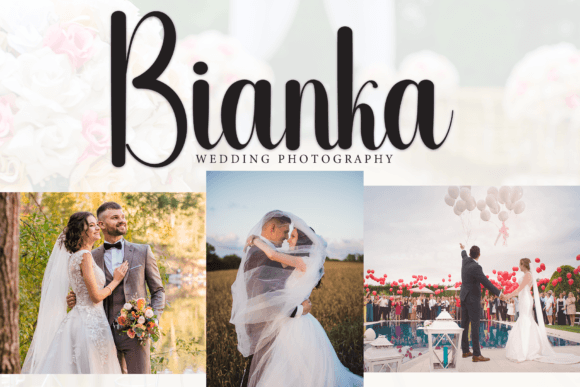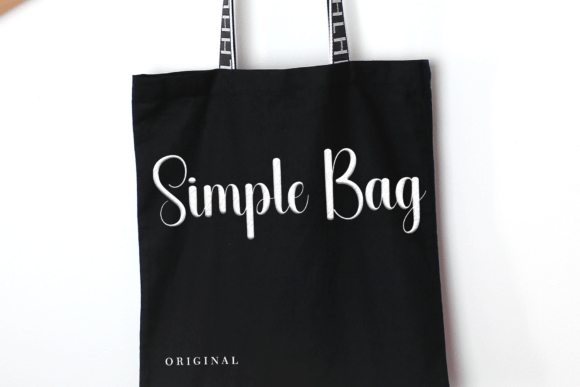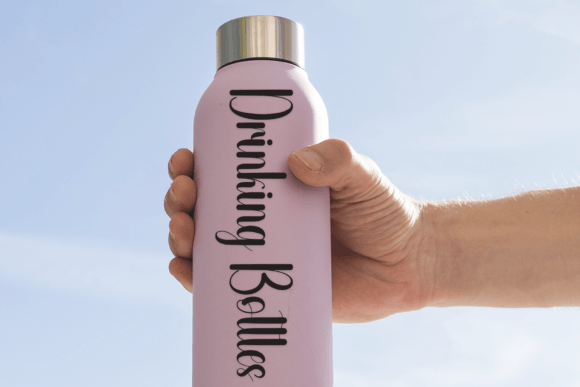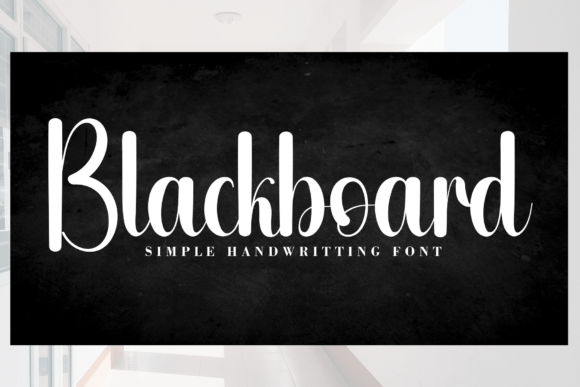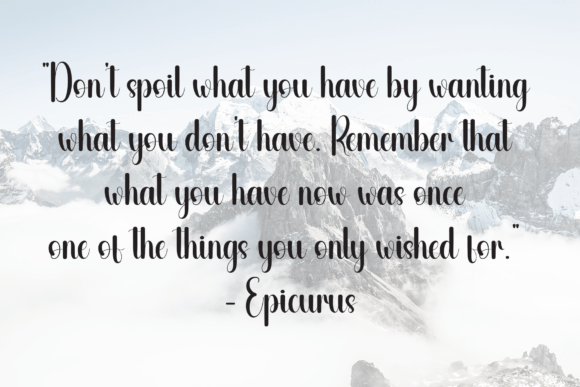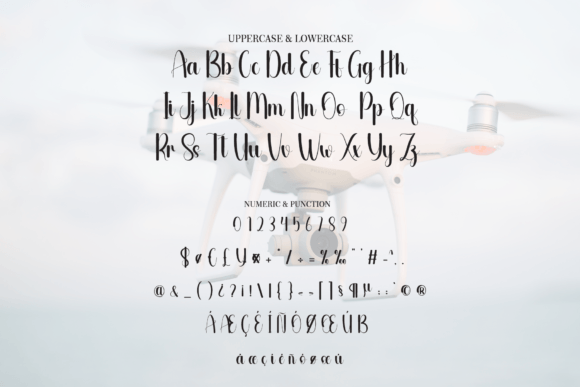
Introducing Drone Font: The Sweet and Friendly Handwritten Font for Your Creative Projects
Are you a designer or crafter looking for a font that can add a touch of warmth and personality to your creations? Look no further than Drone Font! This sweet and friendly handwritten font is perfect for a variety of projects, from wedding invitations and cards to social media graphics and more.
What Makes Drone Font So Special?
Drone Font is a fresh and neat handwritten font that is designed to bring a sense of fun and playfulness to your designs. Its unique and elegant lettering style makes it ideal for a wide range of creative projects, from formal events to casual social media posts.
One of the standout features of Drone Font is its versatility. Whether you’re creating a wedding invitation, a greeting card, or a social media graphic, this font is sure to add a touch of personality and whimsy to your design.
Drone Font is particularly well-suited for wedding invitations and cards. Its sweet and romantic feel makes it perfect for couples looking to add a touch of elegance and sophistication to their wedding stationery.
Imagine creating beautiful wedding invitations, save-the-date cards, and thank-you notes with Drone Font. The font’s elegant and refined lettering style will add a touch of luxury and sophistication to your designs, making them truly unforgettable.
Great for Social Media Graphics and More
But Drone Font isn’t just limited to wedding invitations and cards. Its fresh and playful feel makes it perfect for a wide range of social media graphics, from Facebook posts and Instagram stories to Pinterest graphics and more.
Whether you’re a blogger, influencer, or small business owner, Drone Font is a great choice for creating engaging and eye-catching social media graphics. Its unique and elegant lettering style will help your brand stand out from the crowd and leave a lasting impression on your followers.
Why Choose Drone Font?
So why choose Drone Font for your creative projects? Here are just a few reasons:
- Unique and elegant lettering style: Drone Font features a beautiful and refined lettering style that is sure to add a touch of sophistication and elegance to your designs.
- Versatile: Drone Font is perfect for a wide range of creative projects, from wedding invitations and cards to social media graphics and more.
- Easy to read: Despite its elegant and refined lettering style, Drone Font is still easy to read, making it perfect for body text and other applications where readability is important.
- Fun and playful: Drone Font has a fun and playful feel that is sure to add a touch of personality and whimsy to your designs.
- Pair it with other fonts: Drone Font pairs well with a variety of other fonts, from bold and modern fonts to elegant and refined scripts.
- Experiment with different colors: Drone Font looks great in a variety of colors, from bright and bold hues to more muted and pastel shades.
- Use it for headings and titles: Drone Font is perfect for headings and titles, where its elegant and refined lettering style can really shine.
In conclusion, Drone Font is a sweet and friendly handwritten font that is perfect for a wide range of creative projects. Its unique and elegant lettering style, versatility, and ease of use make it a great choice for designers and crafters looking to add a touch of personality and whimsy to their designs.
Whether you’re creating wedding invitations, social media graphics, or any other type of design, Drone Font is sure to be a great choice. So why not give it a try and see the difference it can make in your designs?